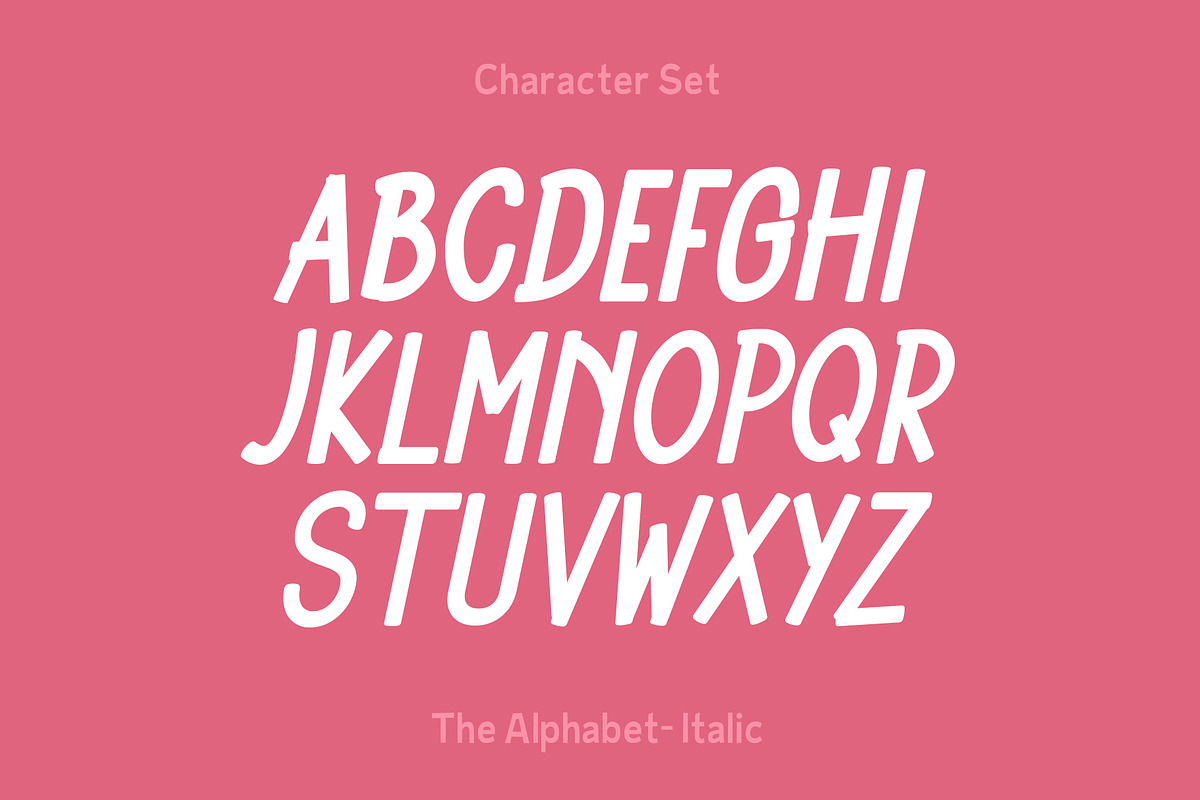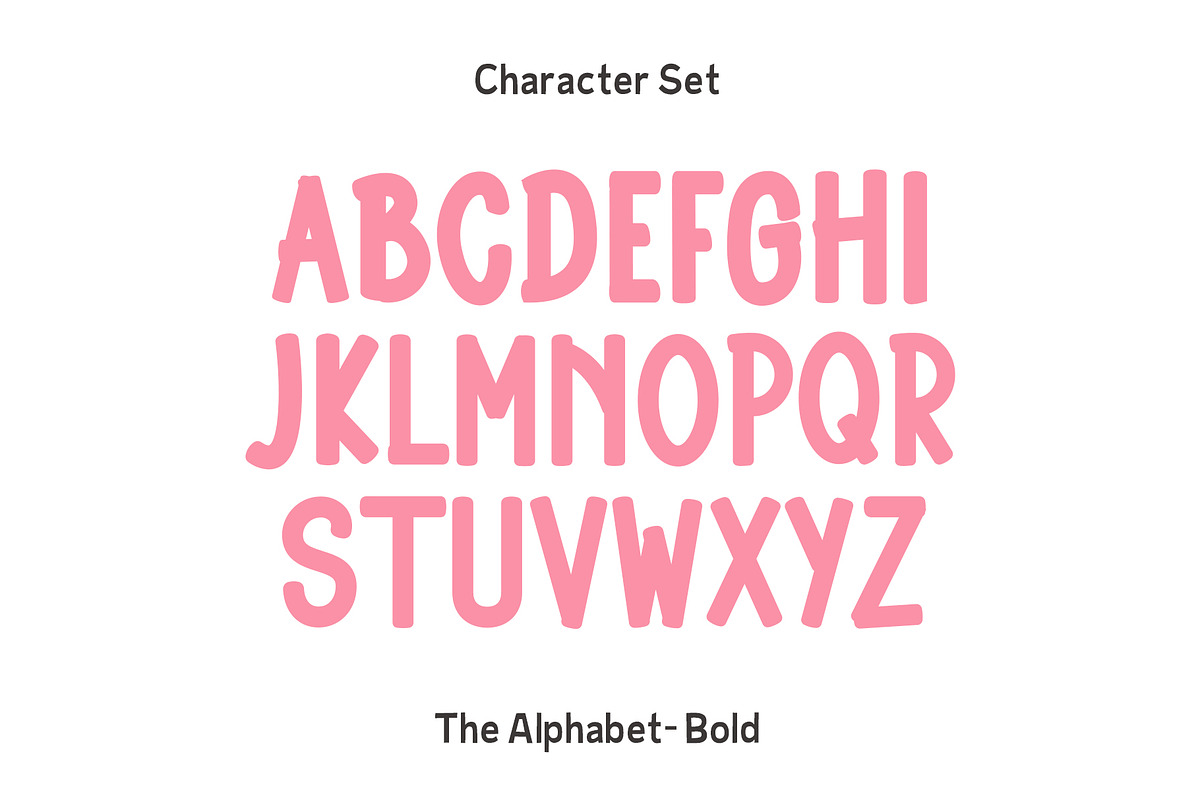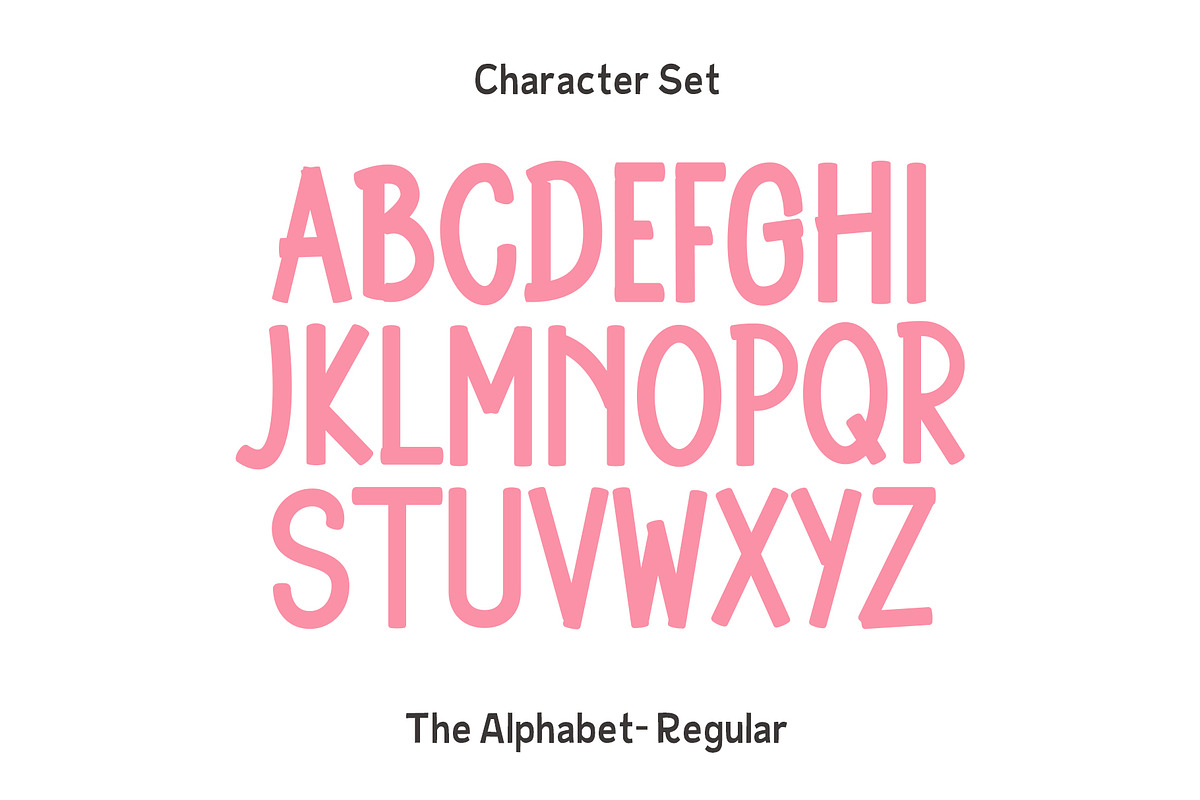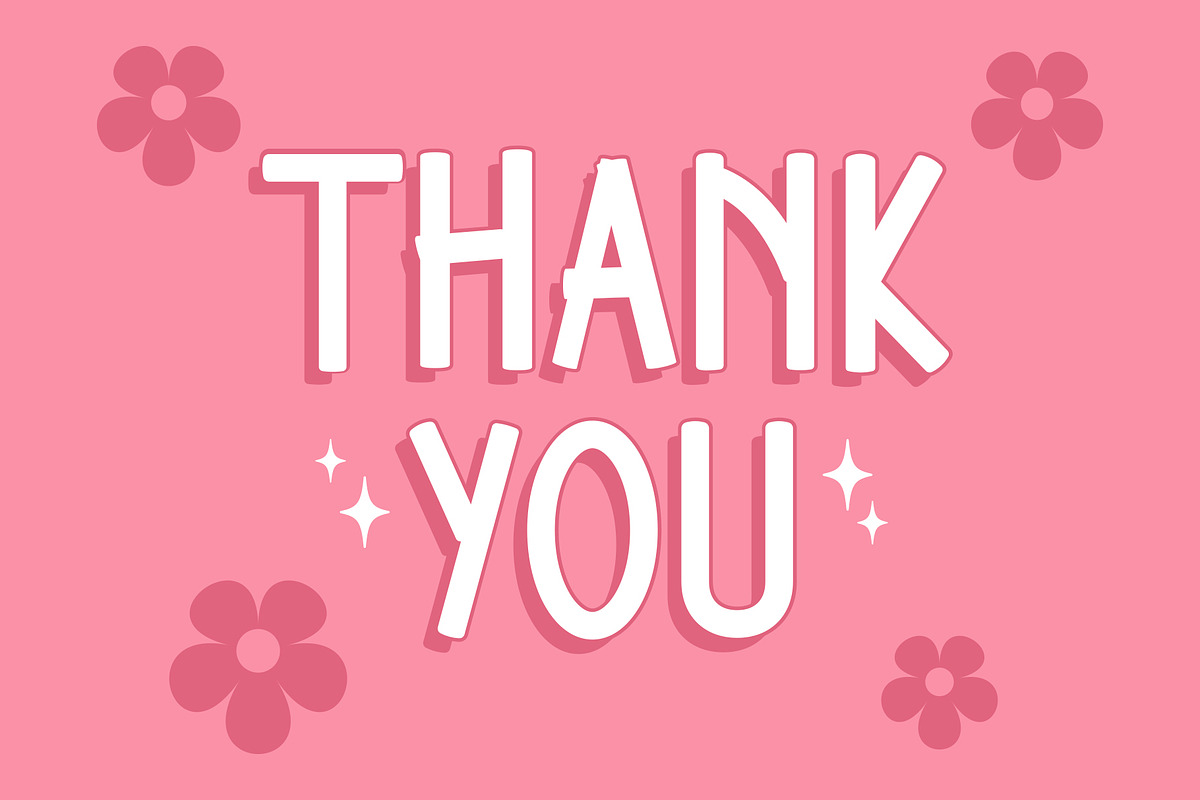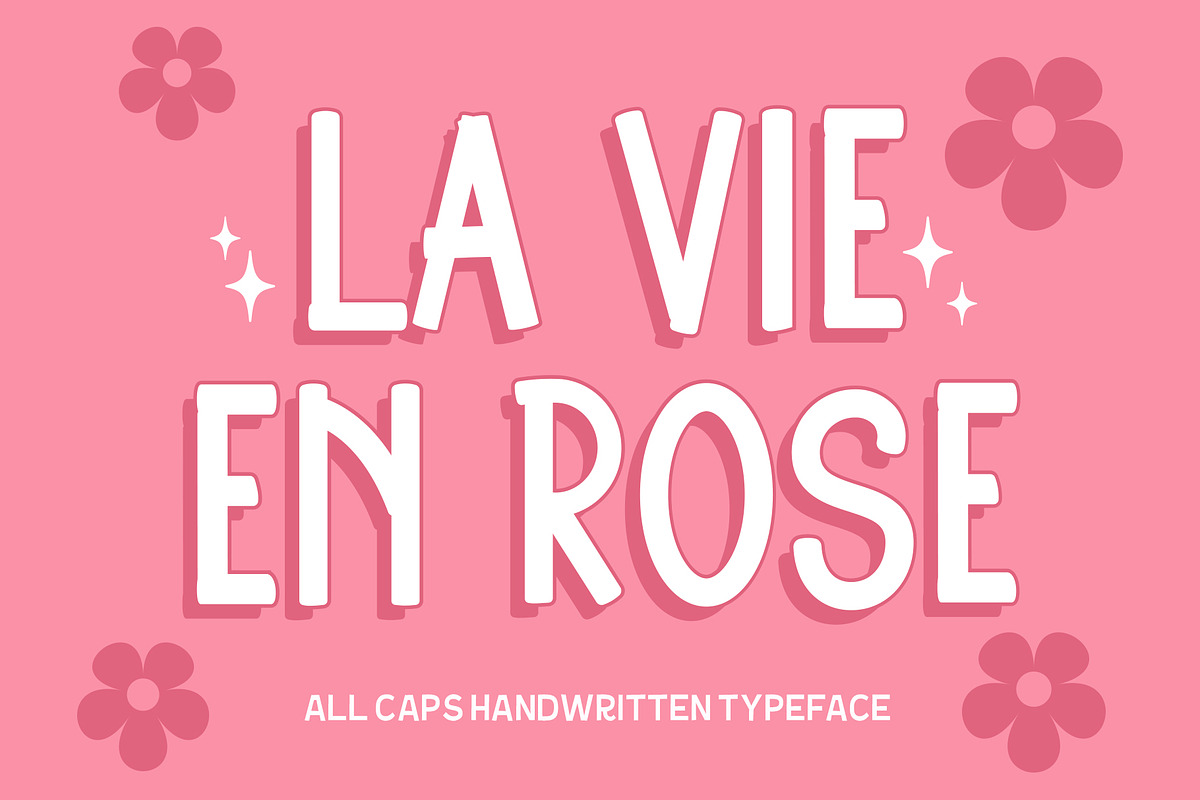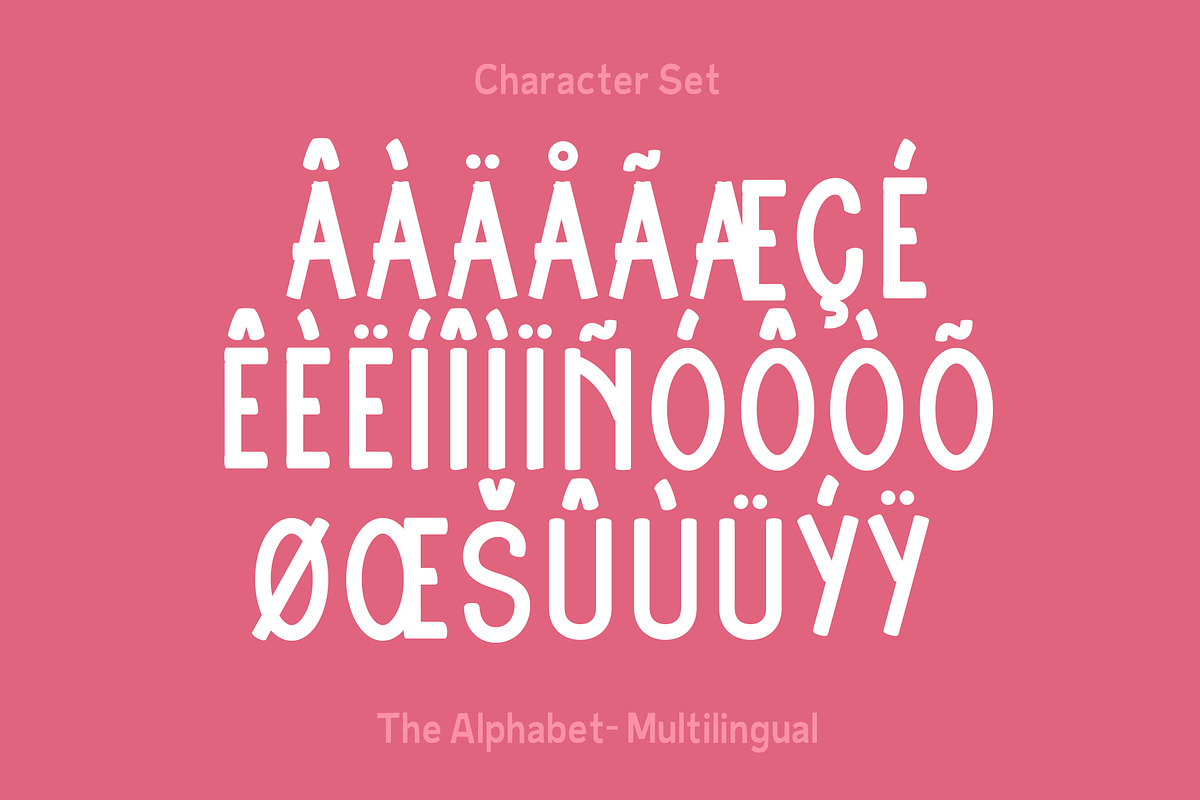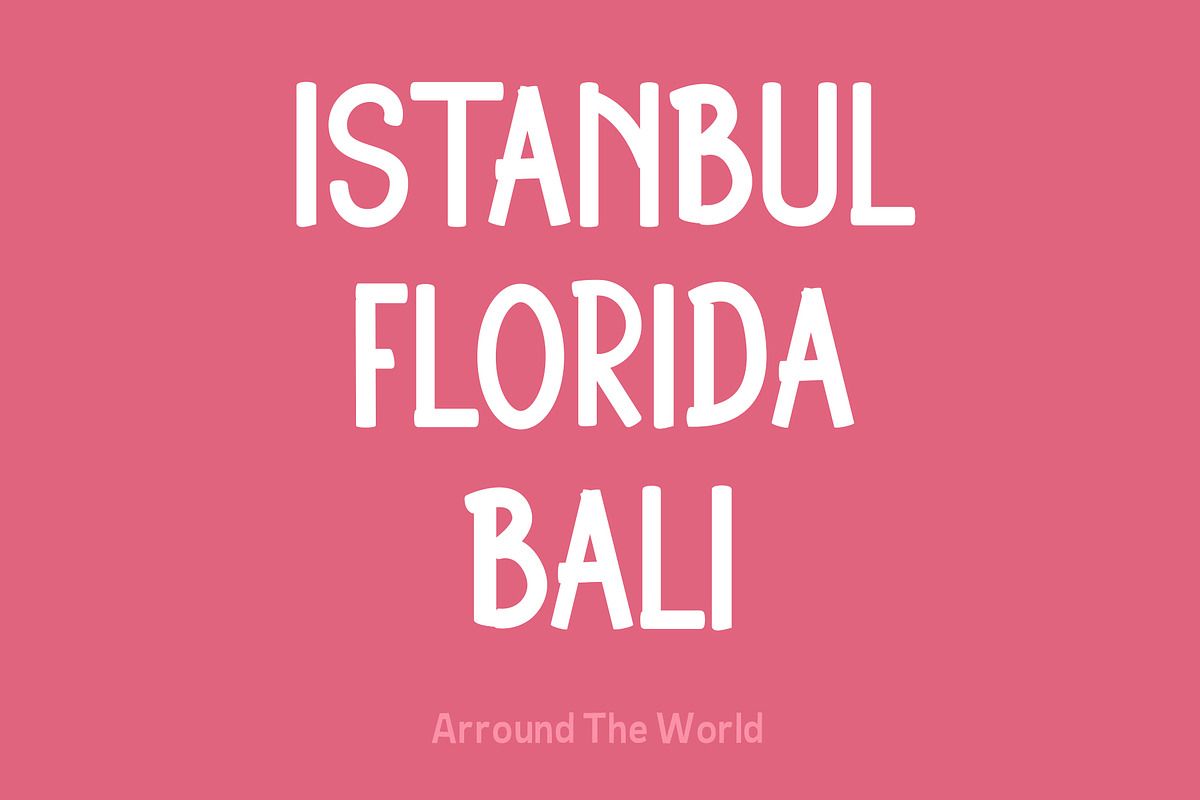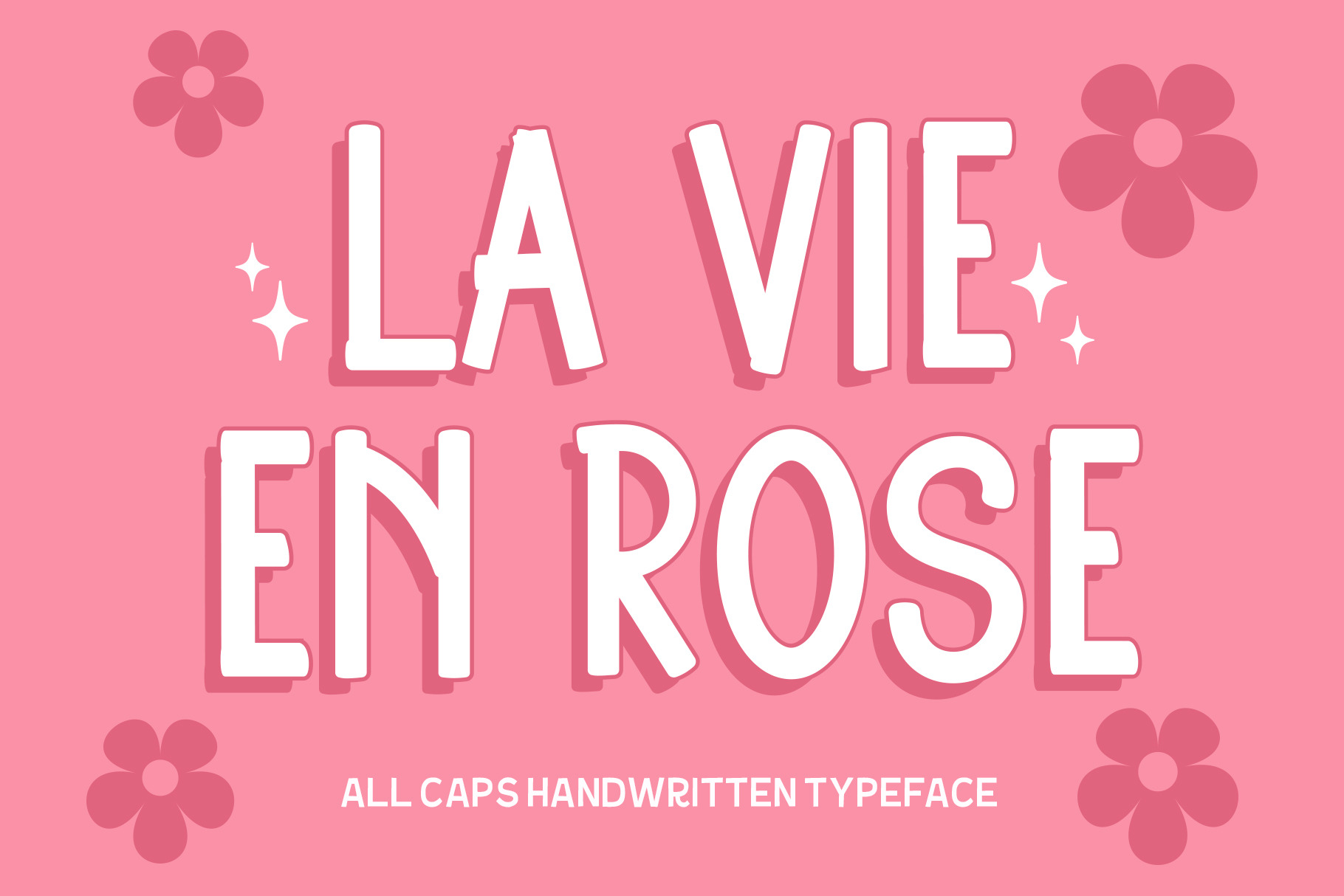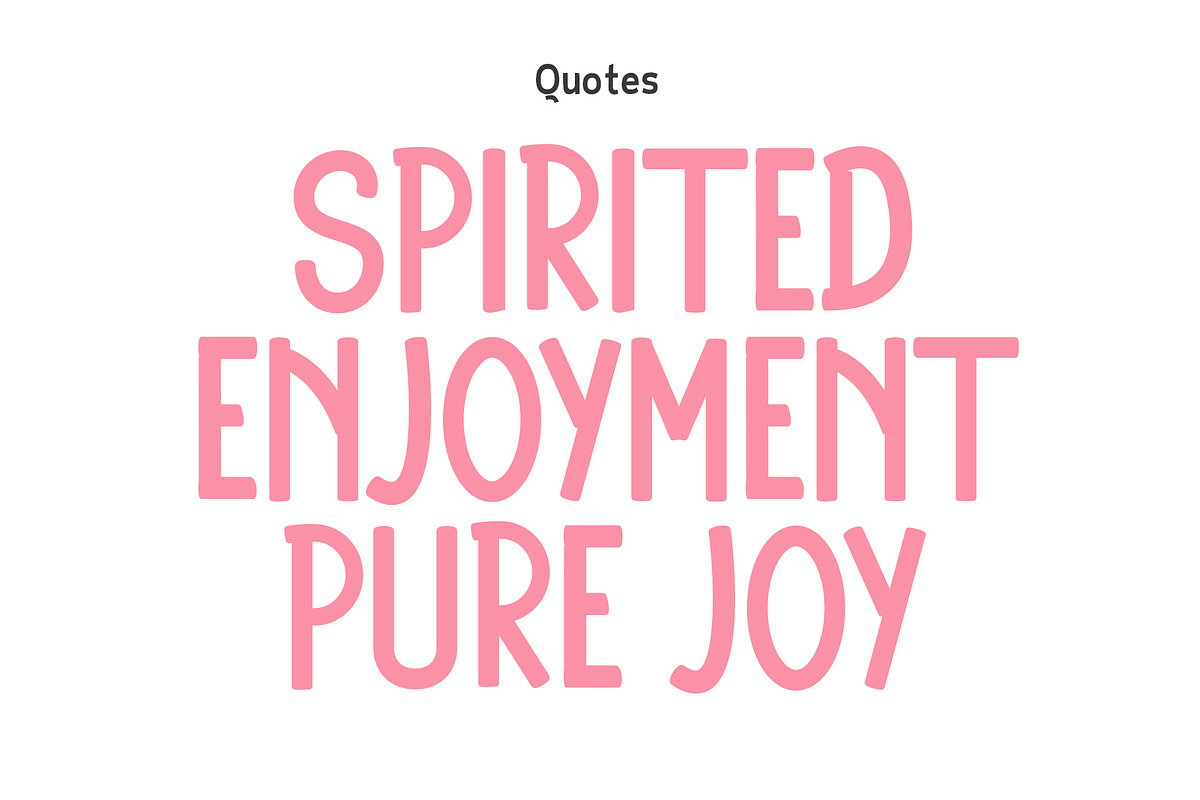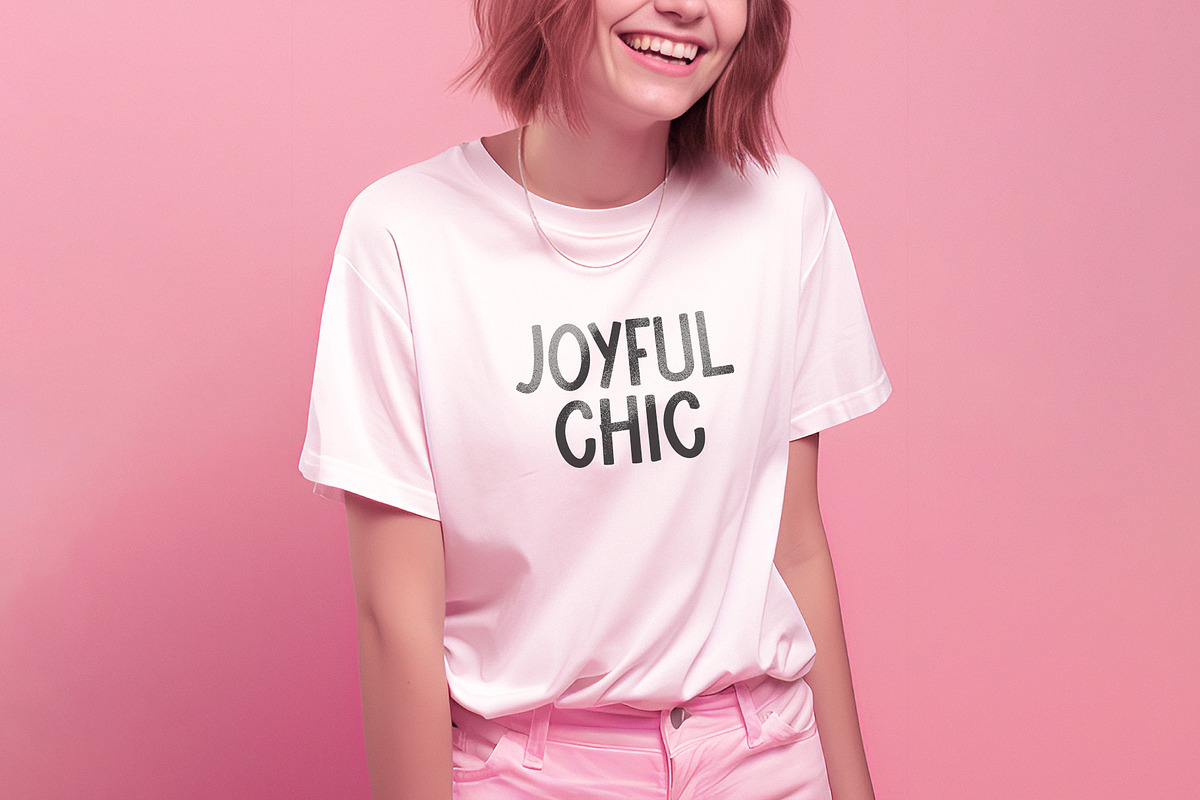
La Vie En Rose - Handwritten Font
La Vie En Rose is a stunning beauty handwritten font style that exudes elegance and sophistication. This font product features beautifully crafted letters that are delicately curved, giving each character a distinct and artistic appearance. The script is fluid and graceful, making it perfect for use in various design projects, such as wedding invitations, greeting cards, logos, and branding materials.
The font's soft curves and gentle strokes lend it an organic feel, giving it a human touch that will appeal to a wide range of audiences. La Vie En Rose is a versatile and stylish font that is sure to add a touch of beauty and refinement to any project.